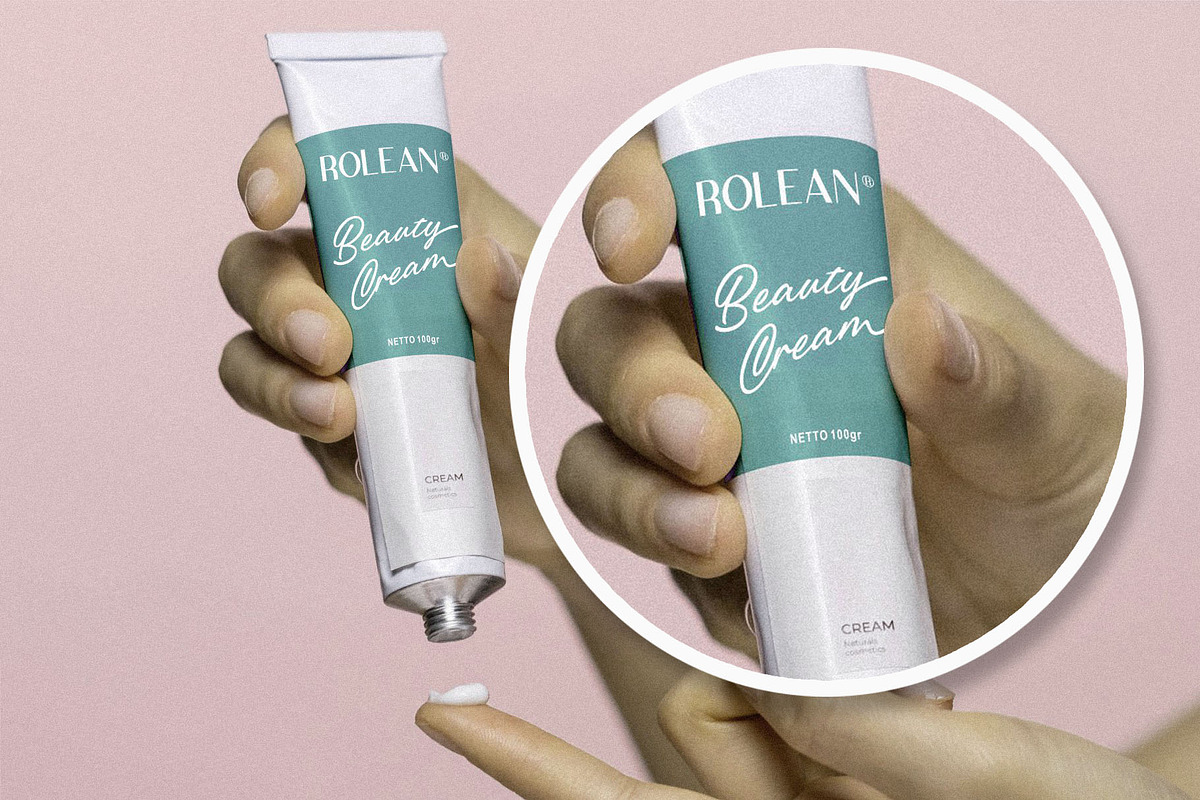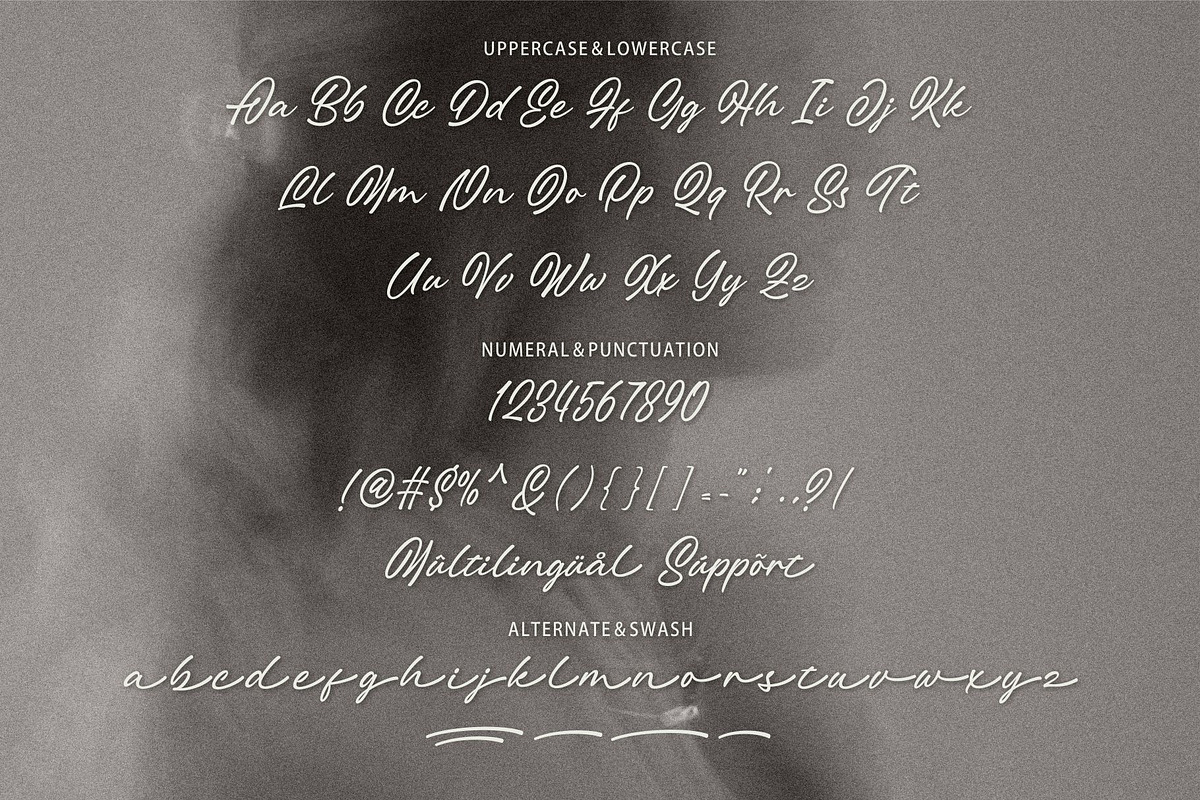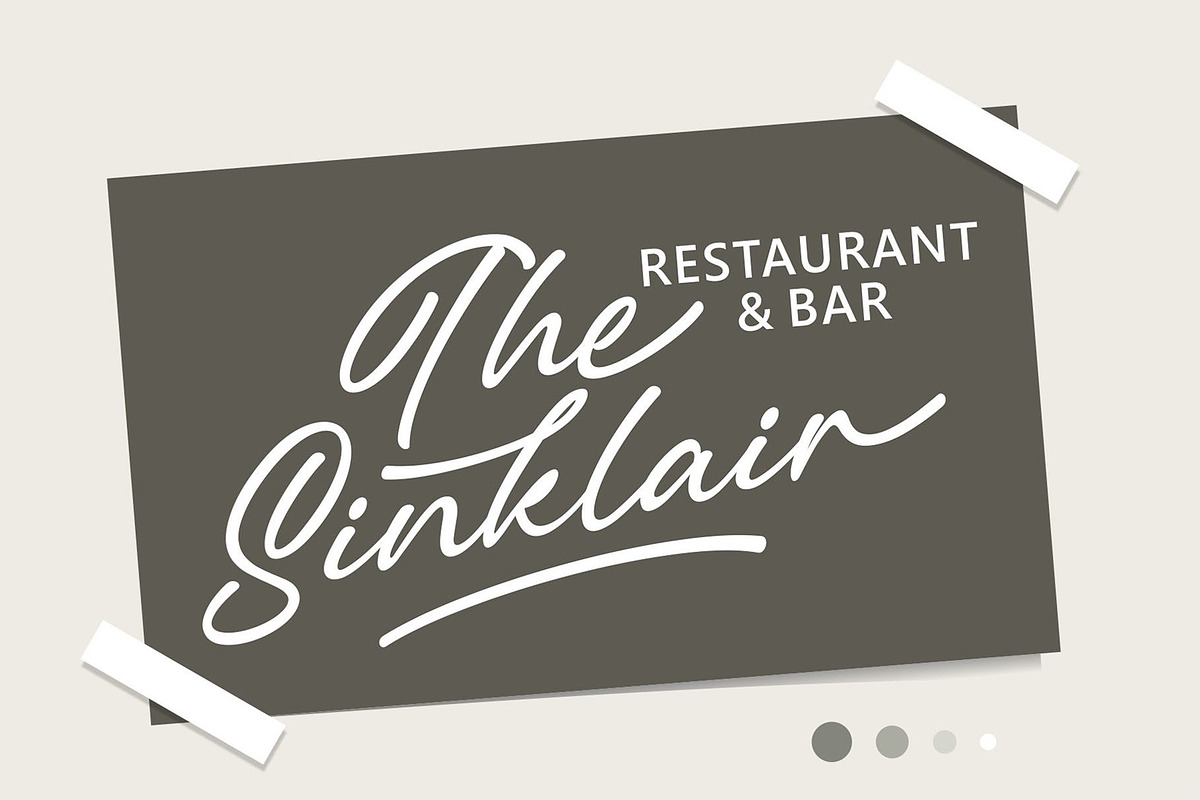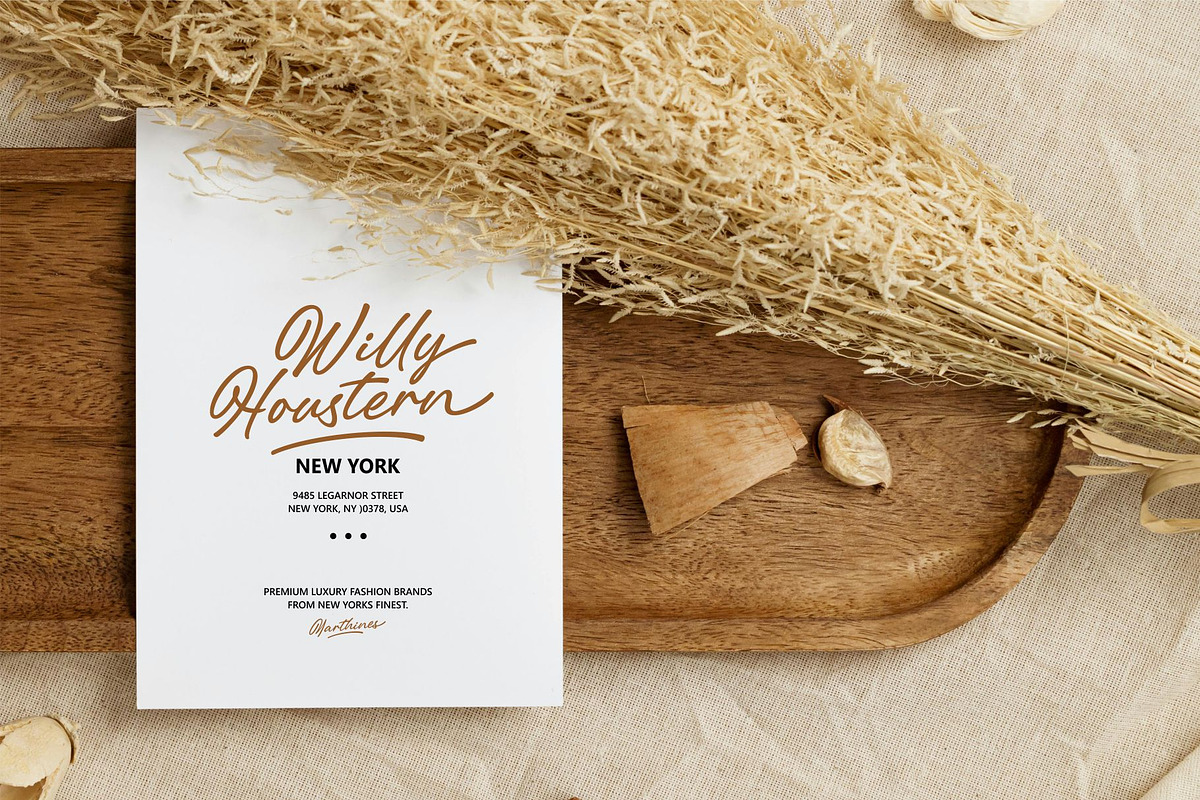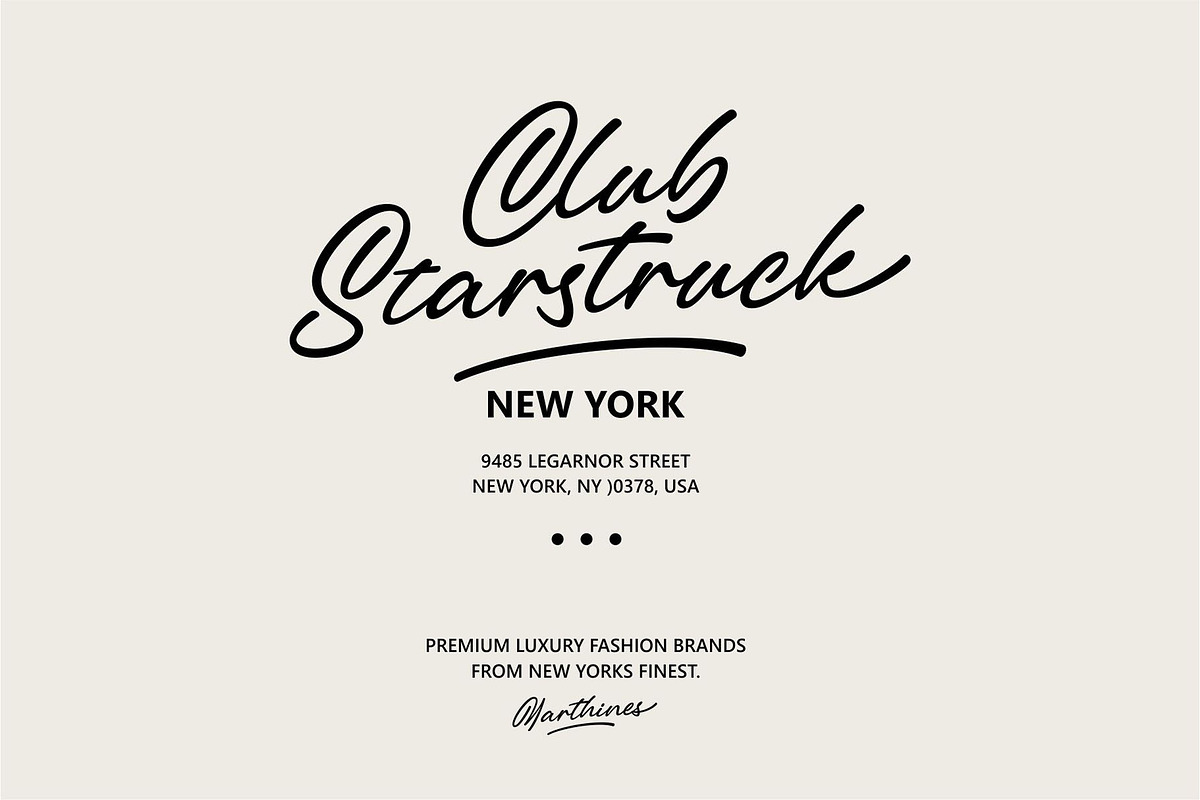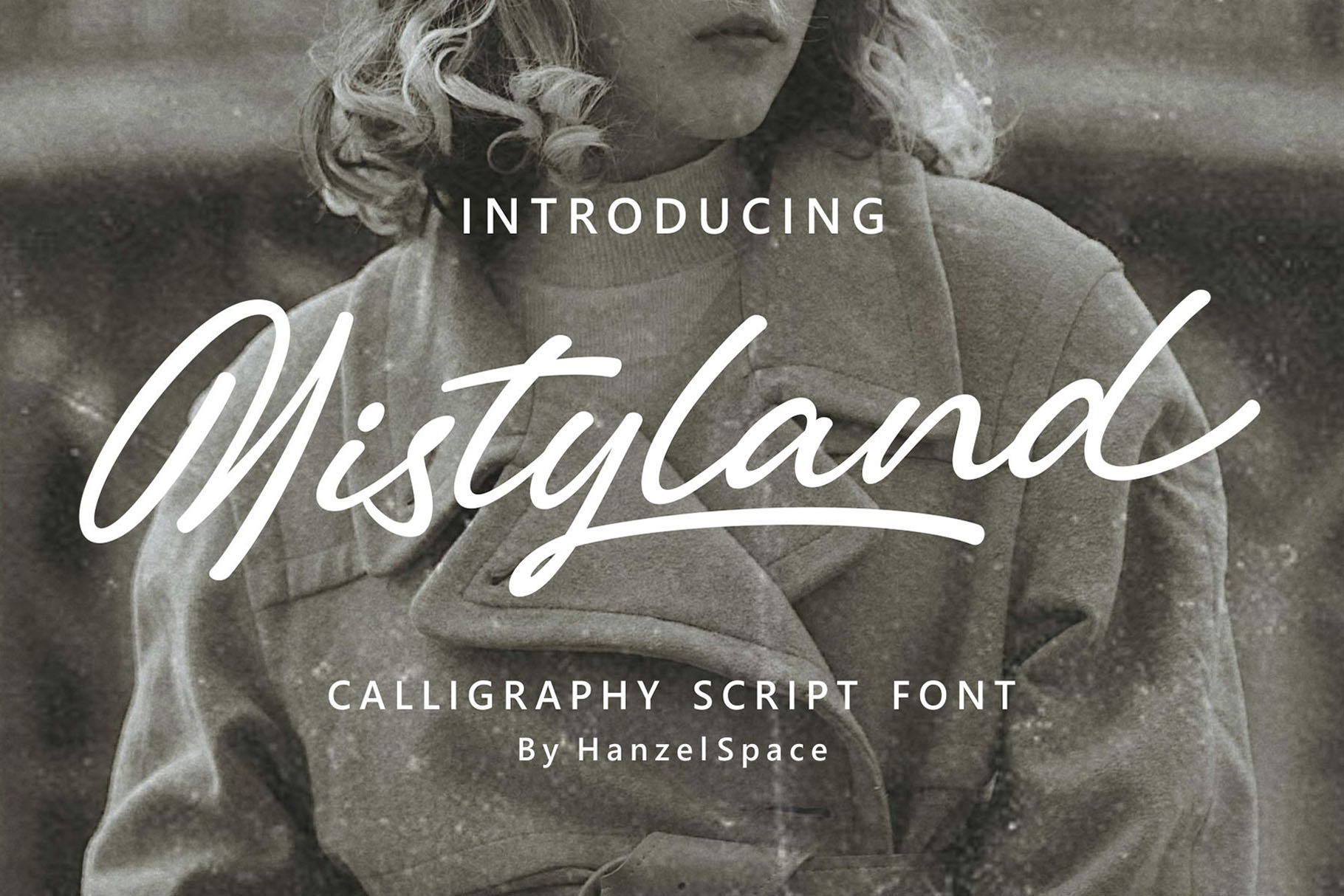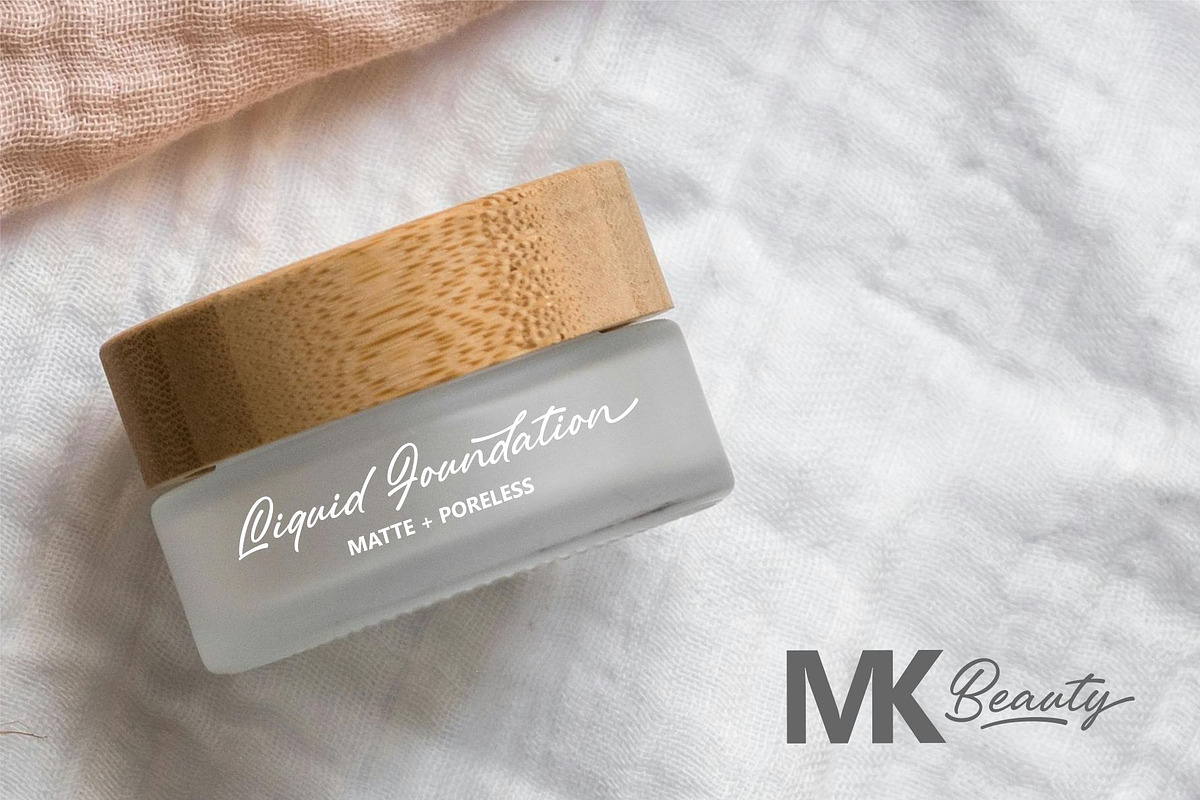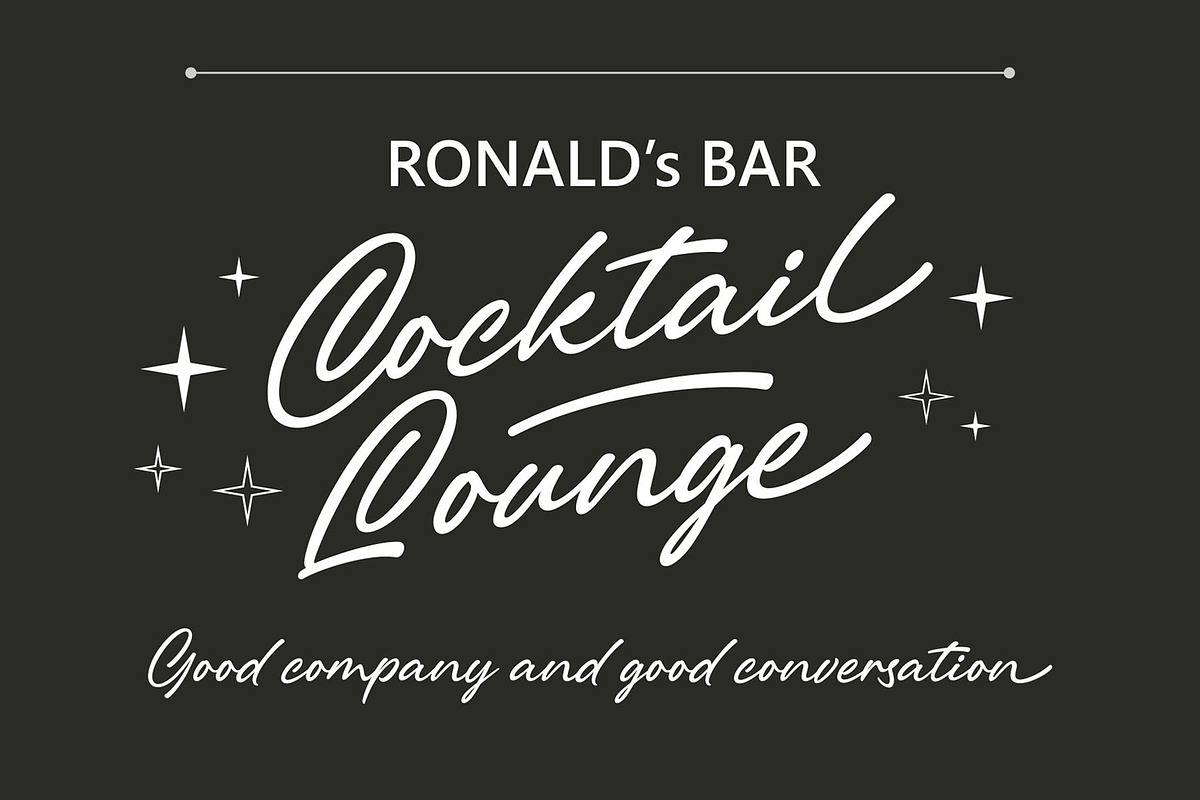
Mistyland - Calligraphy Script Font
Introducing the “Mistyland” font, this font is inspired by an elegant design and its anatomy looks proportional and attractive in every curve so that this font is very suitable for use in various designs for product branding, logos, labels and others.
Full Set of standard alphabet and punctuation
Extra set of ending swashed lowercase
Handwritten ligatures